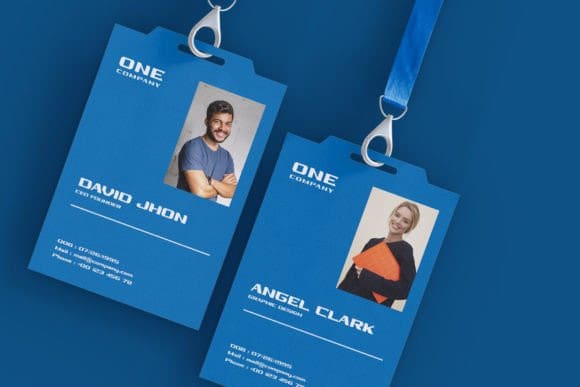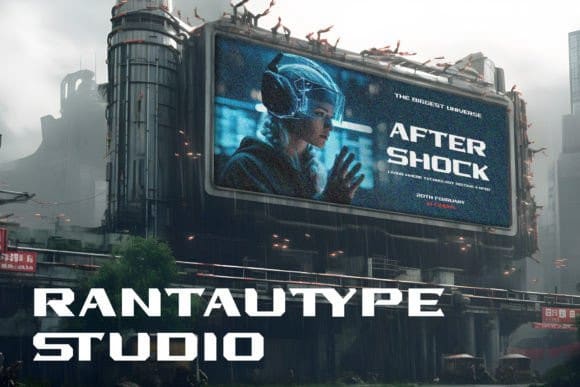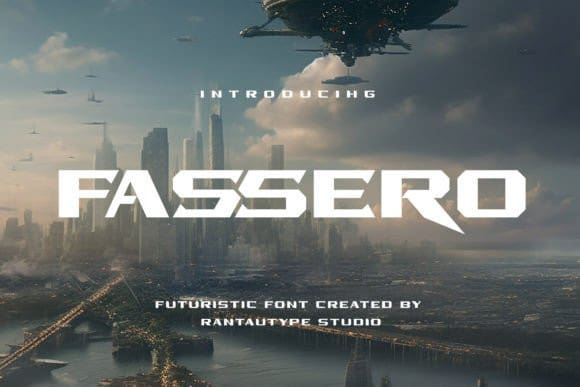
Fassero Futuristic Font
Fassero Futuristic Font is an incredibly unique and futuristic display font. Masterfully designed to become a true favorite, this font has the potential to bring each of your creative ideas to the highest level!